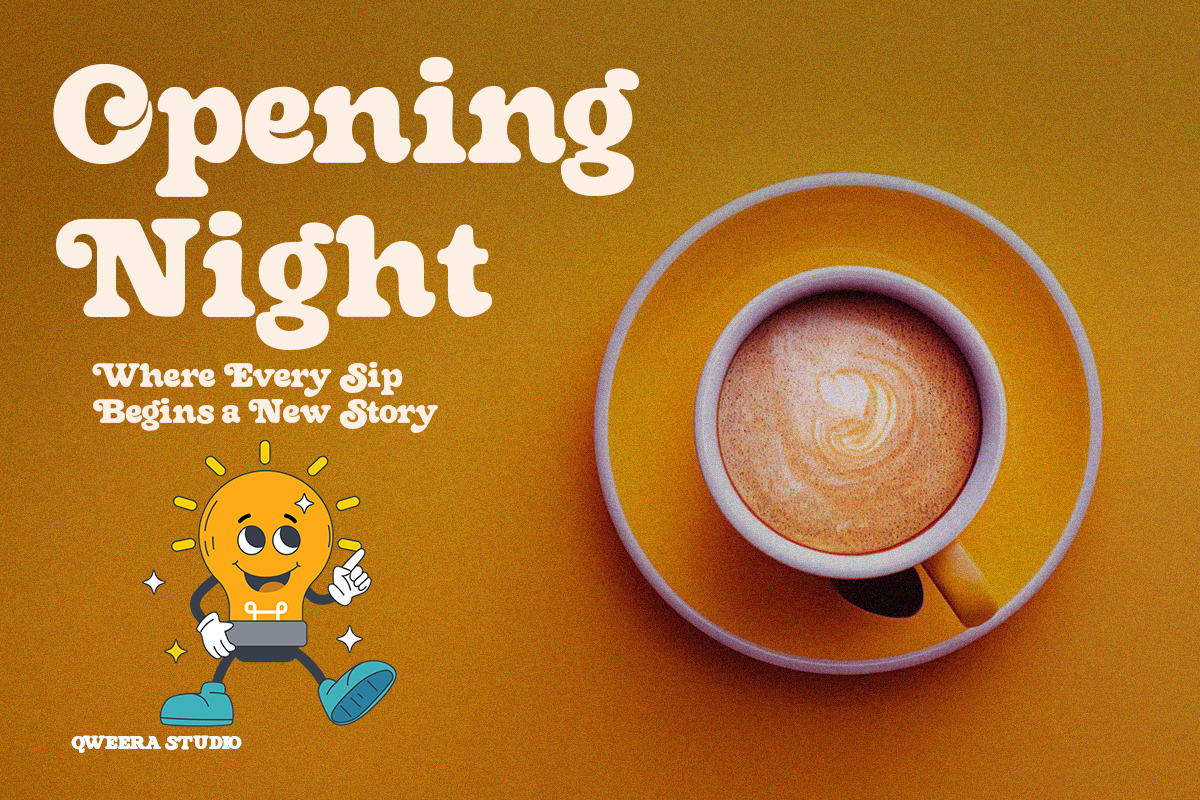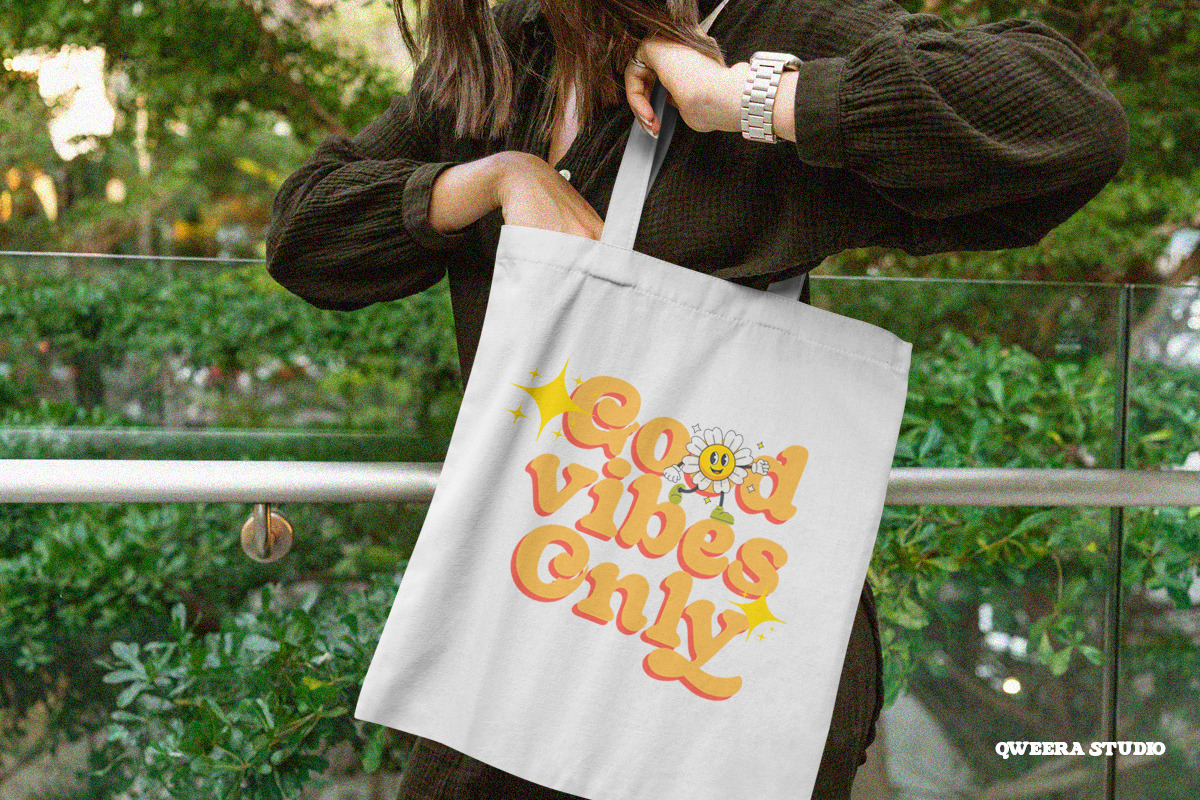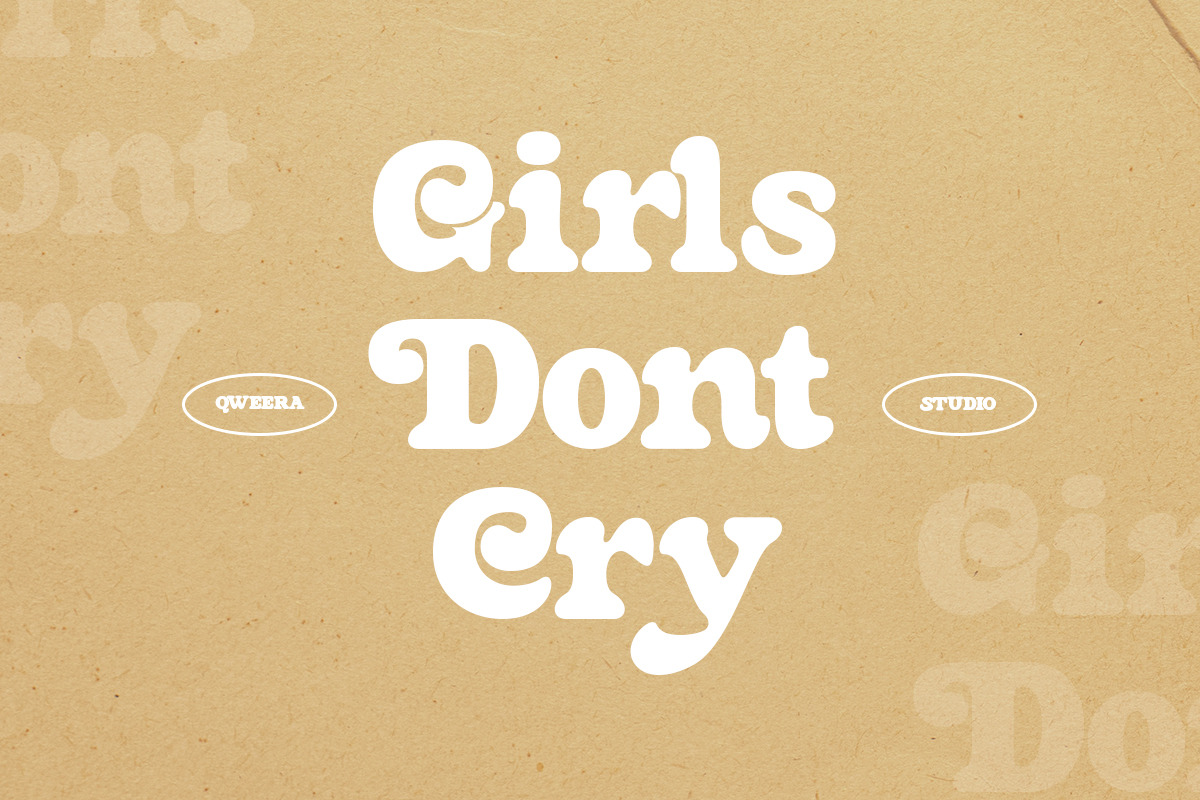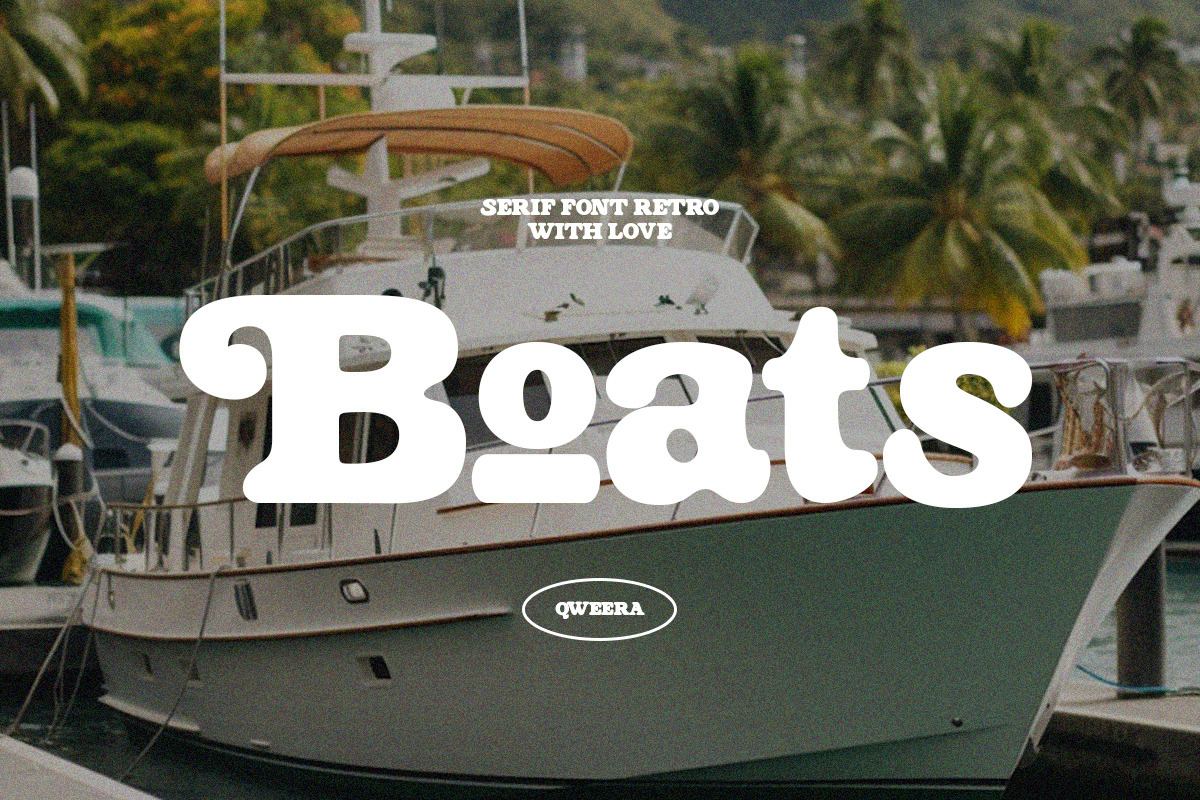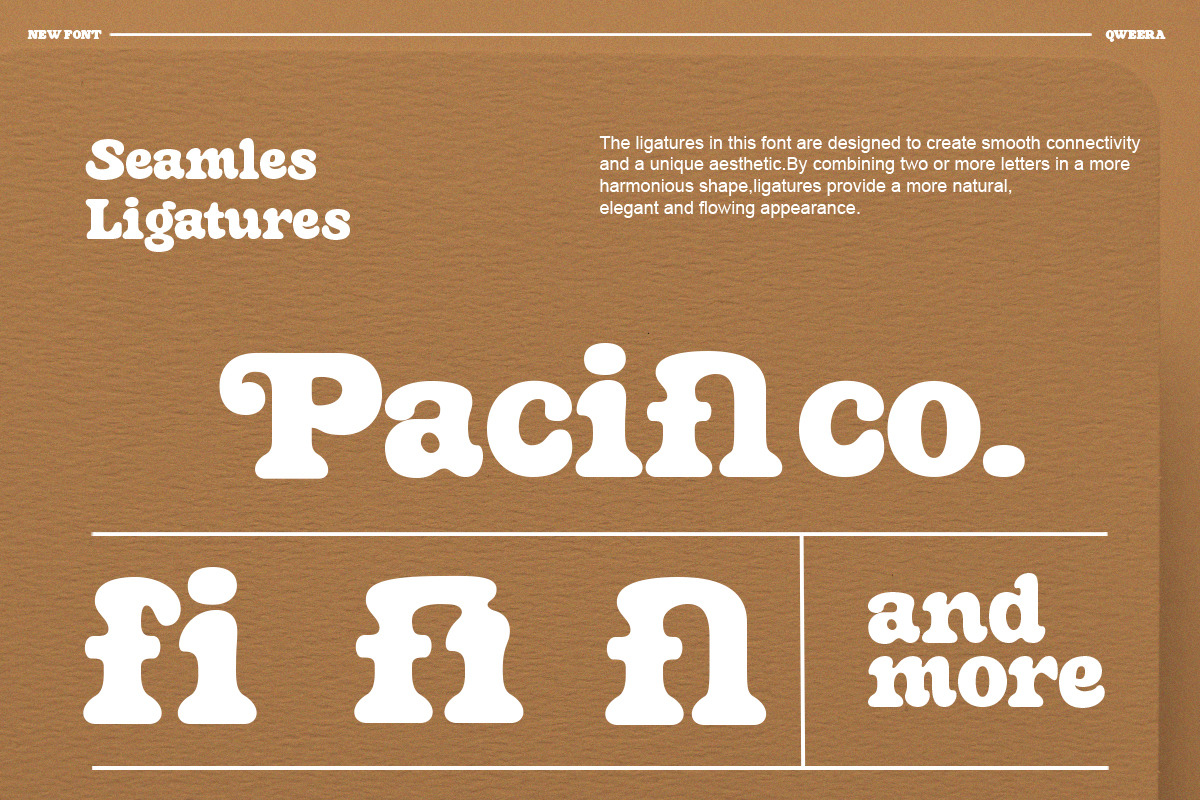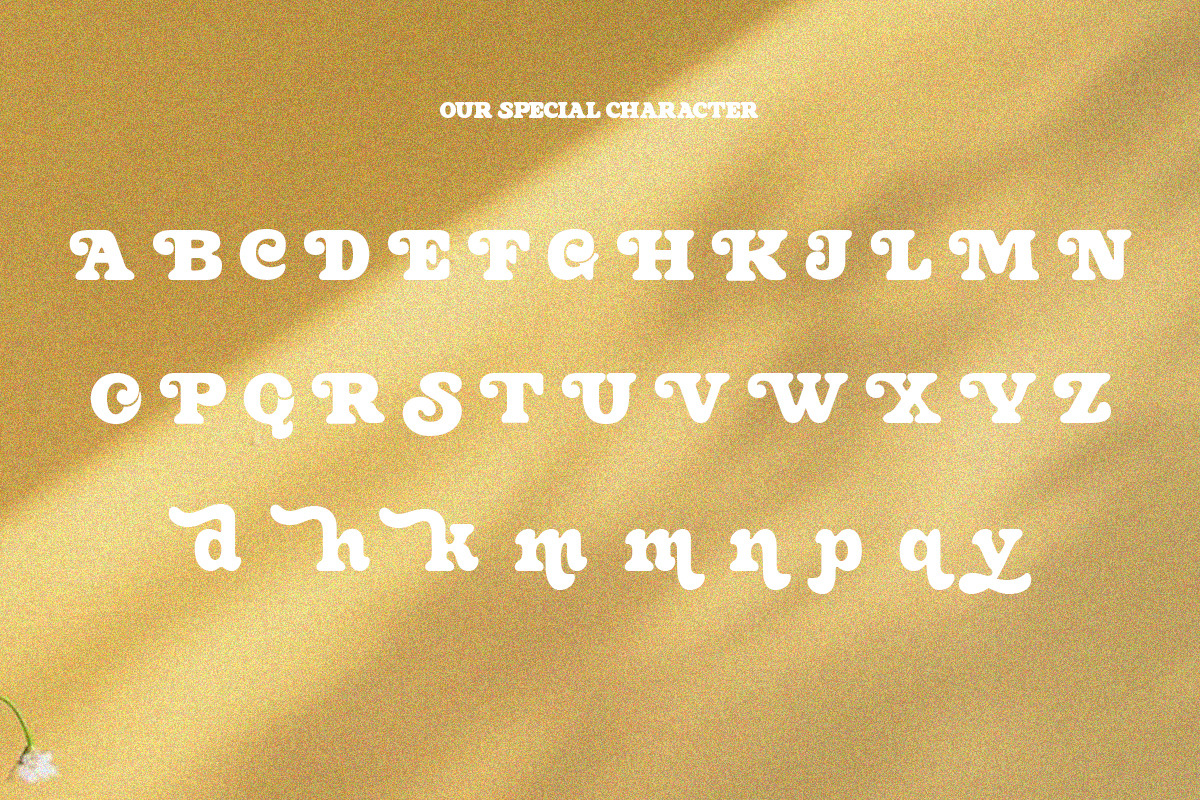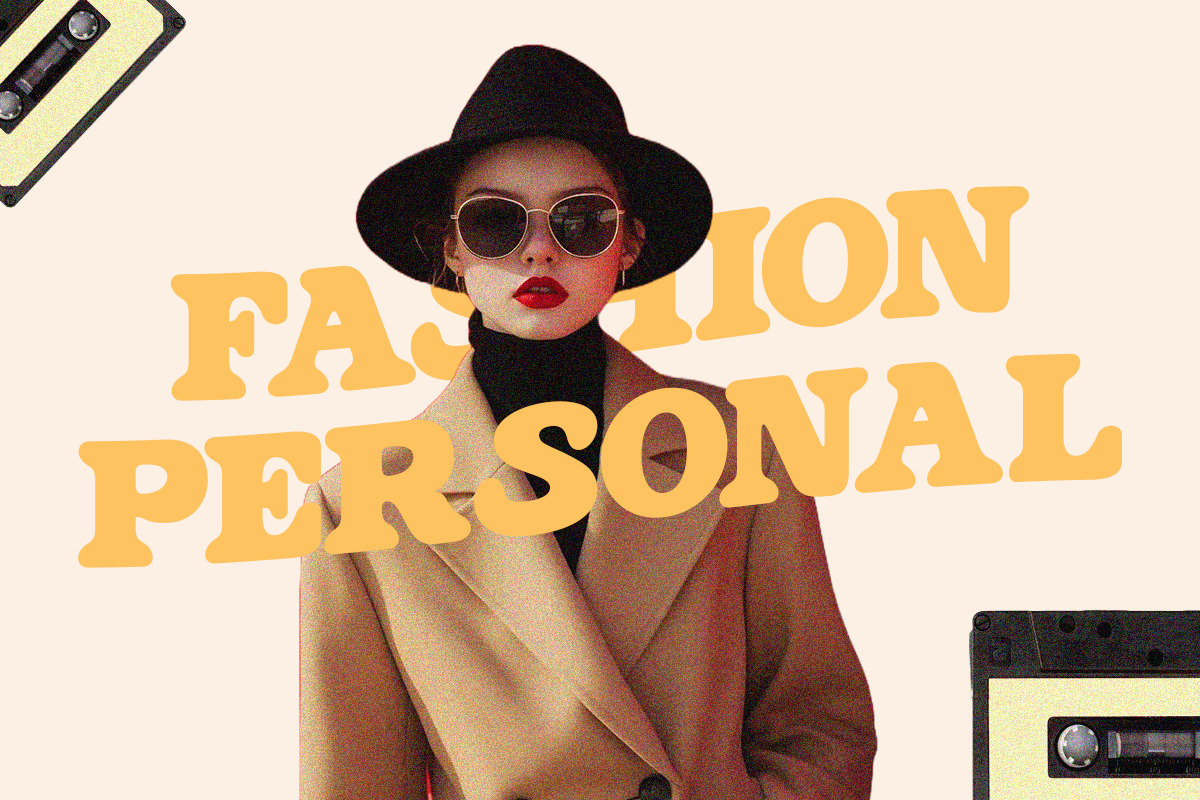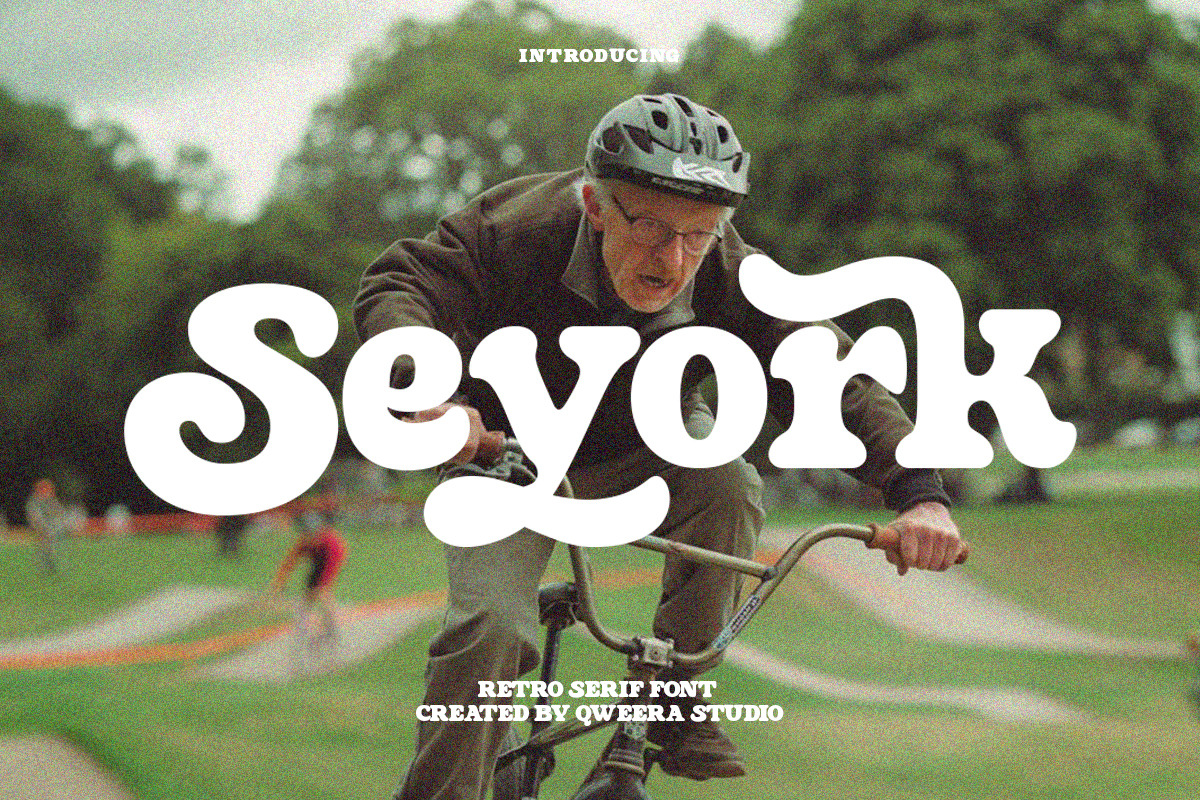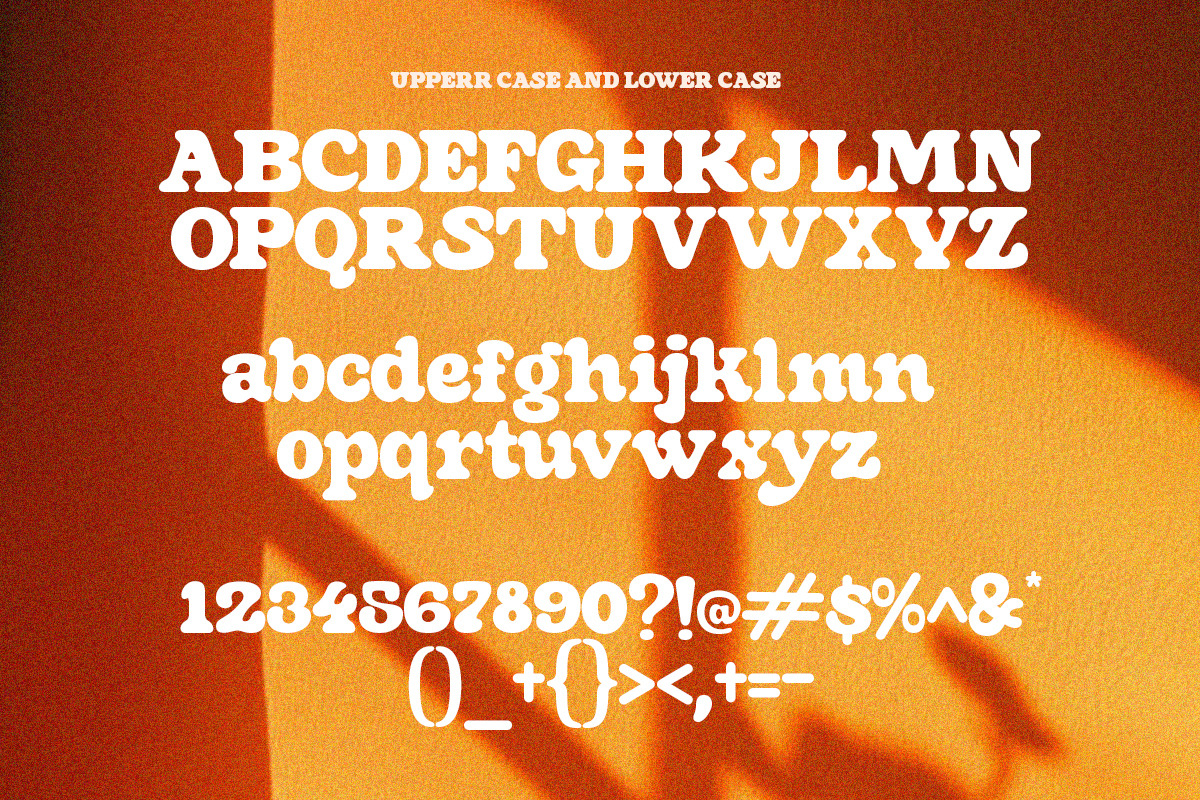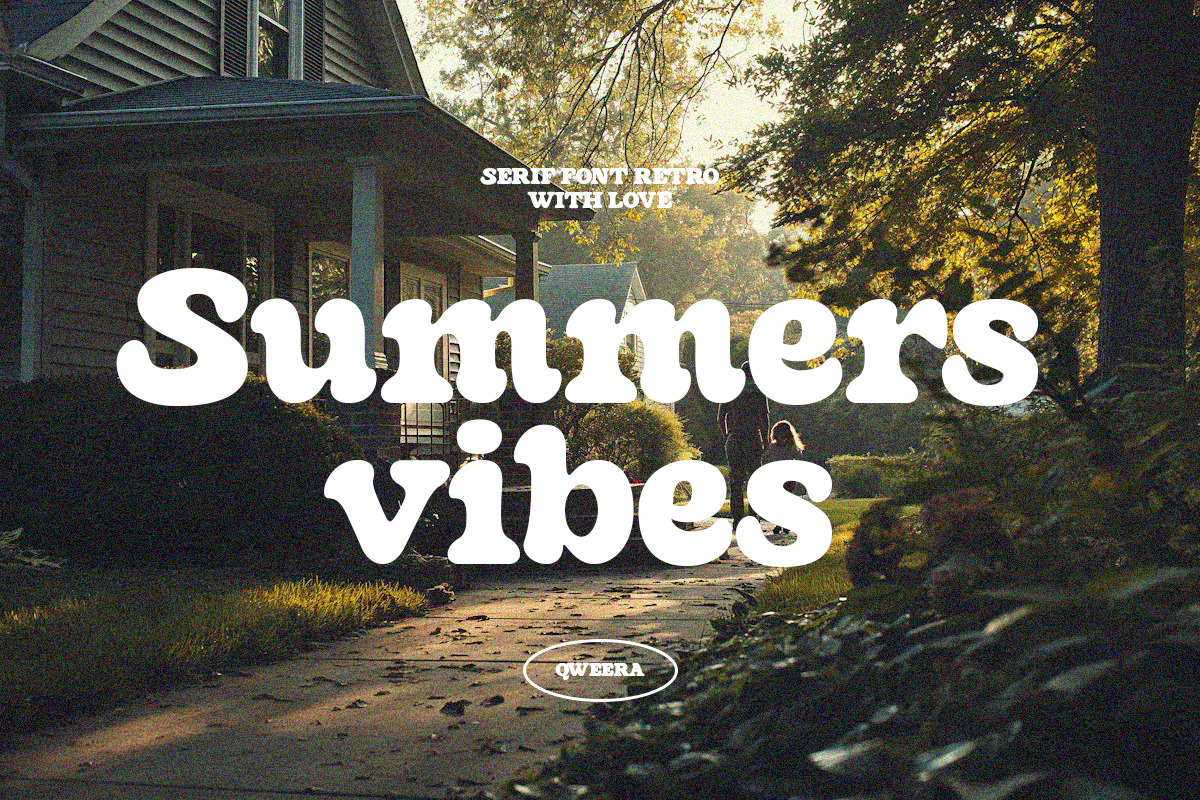
Seyork - Retro Serif Font
Seyork – Modern Retro Serif Font for Bold and Stylish Designs
Seyork is more than just a font—it’s a bold fusion of modern design and retro charm, crafted to bring a unique and stylish edge to your creative projects. With its regular and italic versions, Seyork offers versatility and sophistication, making it the perfect choice for branding, logo design, packaging, posters, and more. Whether you’re crafting a vintage-inspired logo or designing a standout poster, this font ensures your work radiates confidence and retro flair.
Where Modern Design Meets Retro Elegance
Seyork stands out with its clean lines, stylish alternates, and ligatures, offering endless creative possibilities. Its versatility makes it ideal for projects that demand a bold, retro-inspired look, from corporate branding to creative packaging and posters. This font isn’t just a tool—it’s a statement of creativity and innovation.
- Modern Retro Serif Design – Perfect for branding, logo design, packaging, and posters.
- Regular & Italic Versions – Versatile options for a variety of design needs.
- Stylish Alternates & Ligatures – Add a unique and creative touch to your designs.
- Multilingual Support – Compatible with over 20 languages, including English, French, German, Spanish, and more.
Elevate Your Designs with Seyork Seyork isn’t just a font—it’s a tool to transform your creative projects into bold, retro-inspired masterpieces. Whether you’re designing for print, digital, or branding, this font ensures your work stands out with confidence and style.